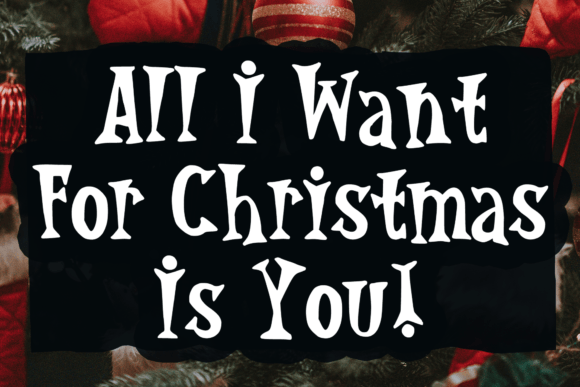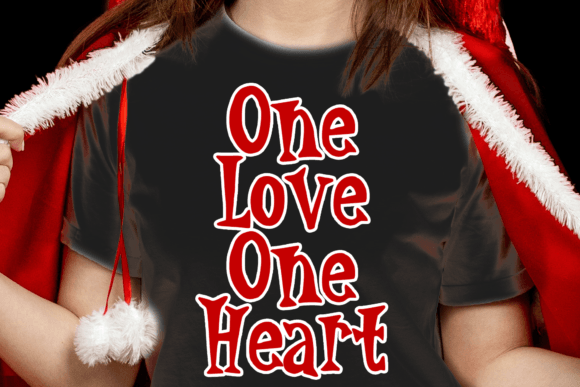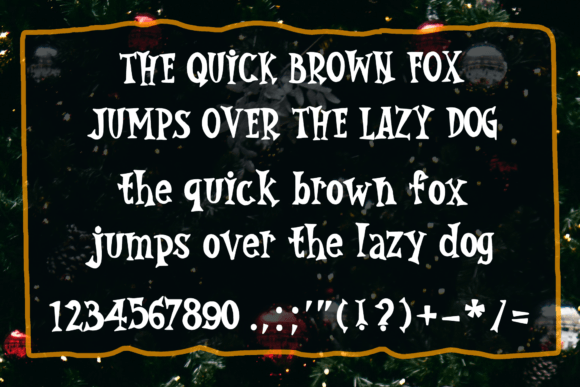
Introduction to Gothic Christmas Font
As the holiday season approaches, many of us are on the hunt for the perfect design element to give our projects that extra something special. For designers, finding a high-quality font that perfectly captures the essence of Christmas can be a challenge. But what if you could combine the magic of the season with a touch of spookiness and whimsy? Welcome to the world of the Gothic Christmas Font, a free download that’s about to become your new design BFF.
Whether you’re working on a creative project for a client or simply want to add some festive flair to your personal designs, the Gothic Christmas Font is the perfect design resource. With its transparent background and playful, yet spooky vibe, this font is sure to add a touch of magic to anything from greeting cards to t-shirts.
Key Features of Gothic Christmas Font
- High-quality design resource perfect for creative projects, especially during the holiday season.
- Unique, intricate Gothic-inspired lettering with a festive Christmas twist.
- Includes a transparent background, allowing for easy integration into various design elements.
Honest Review: Gothic Christmas Font
I recently had the chance to work with the Gothic Christmas Font, and I must say it’s a great addition to any designer’s toolkit. As a designer, I’m always on the lookout for high-quality design resources that can elevate my creative projects.
One of the things that stands out about this font is its versatility. It’s perfect for creating a spooky and festive atmosphere during the holiday season. I particularly love using it for seasonal graphics and social media posts.
Here are some of the things that work well with this font:
- ✨ Easy to read: The font is clear and easy to read, even at smaller sizes.
- ✨ Unique design: The Gothic Christmas Font has a distinctive and eye-catching design that’s sure to grab attention.
- ⚠️ Limited character set: The font only includes a limited set of characters, which may make it less suitable for longer blocks of text.
Overall, I’m really impressed with the Gothic Christmas Font. It’s a great resource for designers who want to add a touch of holiday cheer to their projects. With its unique design and high-quality construction, it’s definitely worth checking out.
Gothic Christmas Font
The Gothic Christmas Font is a unique and versatile design resource that can elevate your creative project to the next level. With its high-quality aesthetic, you can create a variety of visual effects that will leave a lasting impression on your audience.
The Gothic Christmas Font is perfect for:
- Designing holiday cards and invitations
- Creating social media graphics for the holiday season
- Adding a touch of elegance to your blog posts and marketing materials
- Designing custom gift tags and wrapping paper